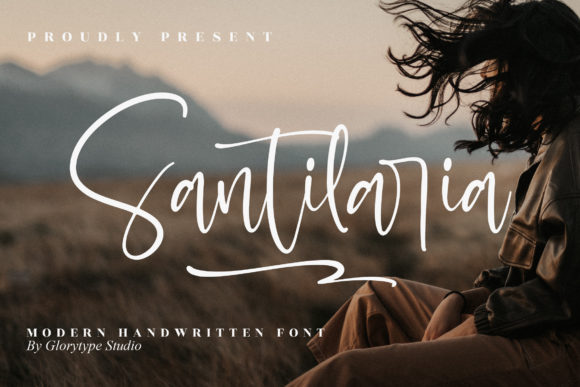
Santilaria is a lovely and timeless handwritten font. It is the best choice for creating eye catching logos, branding and quotes. Every letter has a unique and beautiful touch, which will make your design come alive!